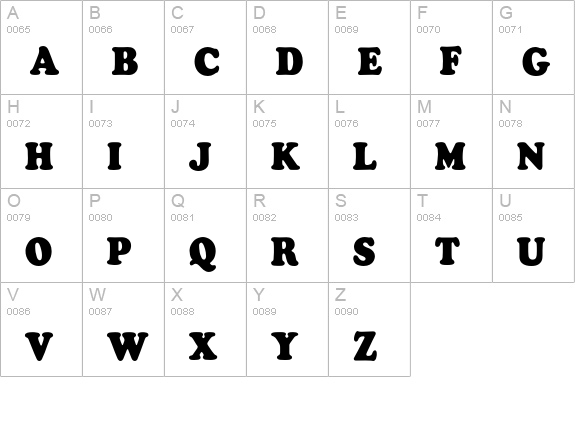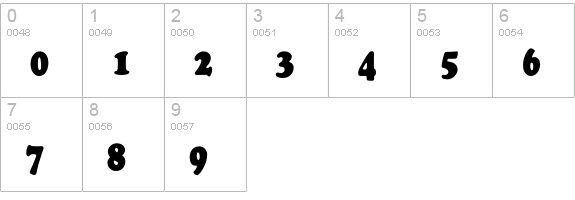
Cooper Black Condensed Regular is a maximum-weight, dramatic, condensed-width variant in the Cooper typeface family \xE2\x80\x94 well suited to maximum-impact headlines, posters, and packaging.
Cooper Black Condensed Regular font is a timeless and classic typeface that exudes a sense of warmth and familiarity. Its condensed design makes it perfect for creating bold headlines and eye-catching designs. The rounded edges and thick strokes give this font a friendly and approachable feel, making it ideal for a wide range of projects. Best of all, Cooper Black Condensed Regular font is available for free download at FontsMarket.com. Whether you're working on a poster, flyer, or logo design, this versatile font is sure to make a statement and elevate your project to the next level. Download it today and add a touch of charm and sophistication to your designs with Cooper Black Condensed Regular font.